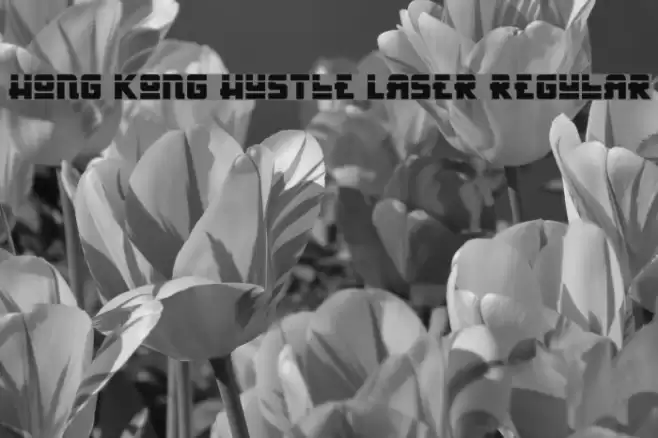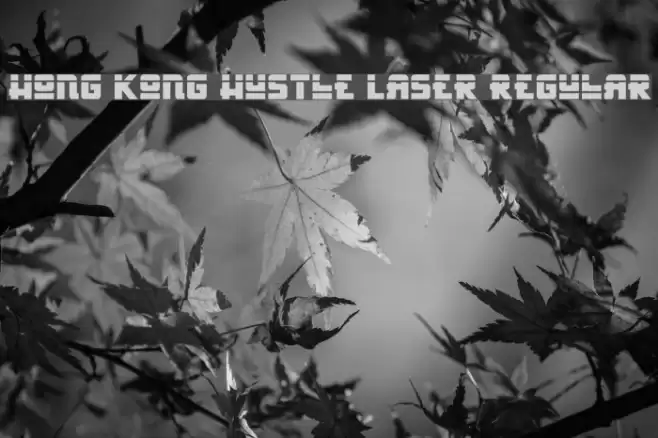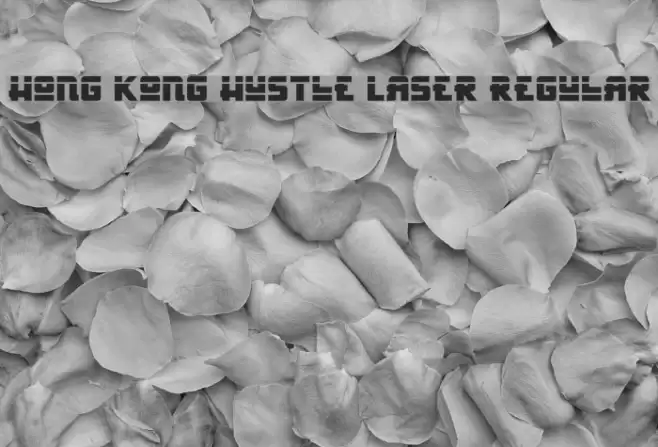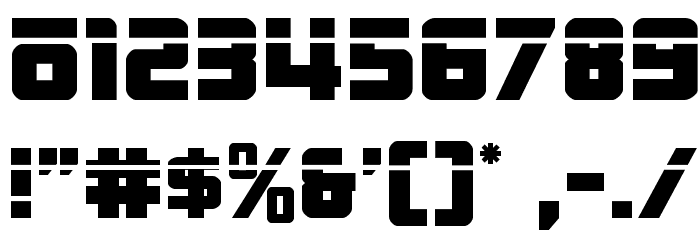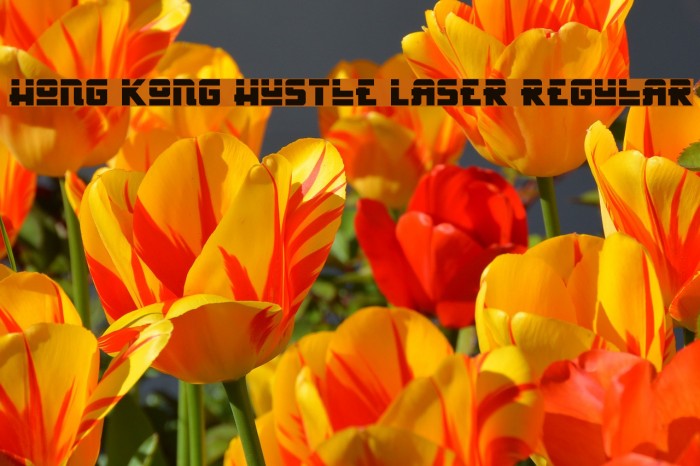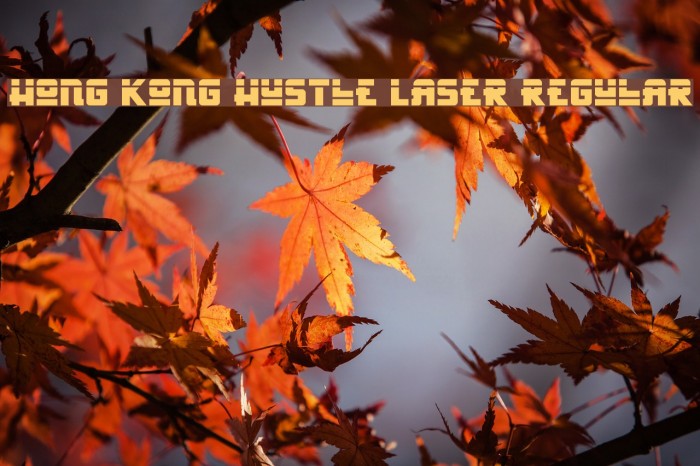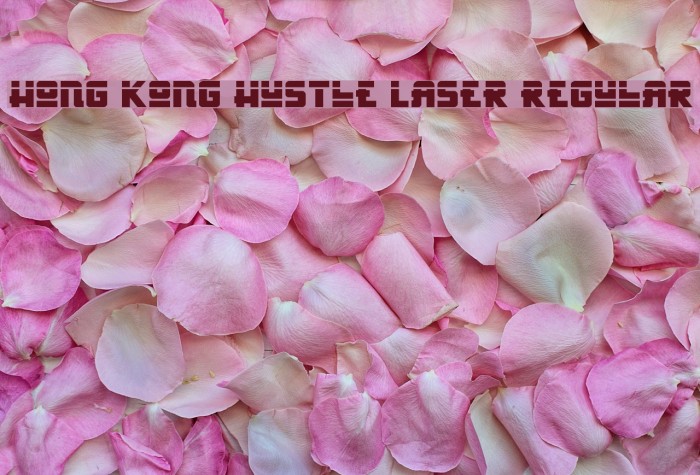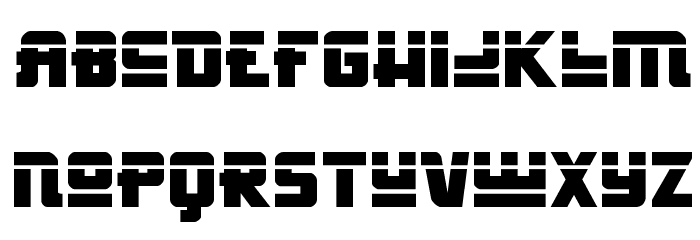
Hong Kong Hustle Laser Regular Font
Hong Kong Hustle Laser Regular Description
This font features a bold and futuristic design with a strong geometric structure. The characters are blocky and angular, reminiscent of digital or sci-fi aesthetics. Each letter is crafted with sharp edges and uniform thickness, giving it a distinct, modern look. The uppercase and lowercase letters maintain a consistent style, while the numerals and special characters complement the overall design. The font's unique style makes it stand out, ideal for projects that require a bold and eye-catching typeface.
A bold, futuristic font with geometric, angular characters from Uncategorized fonts.
- Proposed Projects: Ideal for sci-fi themed designs, video game graphics, posters, and branding that requires a modern, digital look.